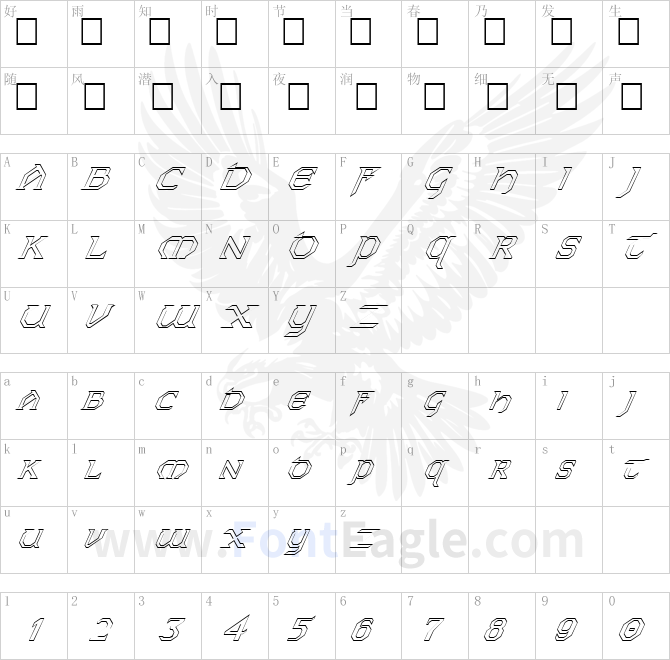
- Font name:FZ JAZZY 31 HOLLOW ITALIC
FZ-JAZZY-31-HOLLOW-ITALIC is a great font, widely used in graphic design, single-page menu design, poster design and other fields, and is deeply loved by designers.FZ-JAZZY-31-HOLLOW-ITALIC download.